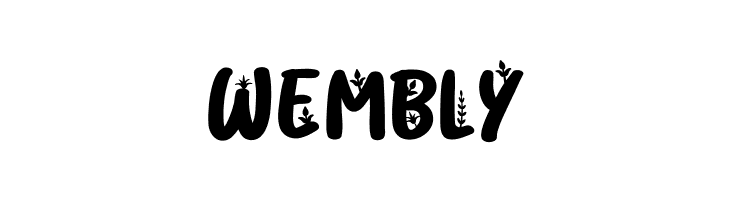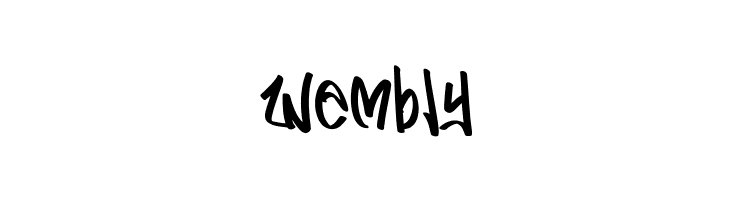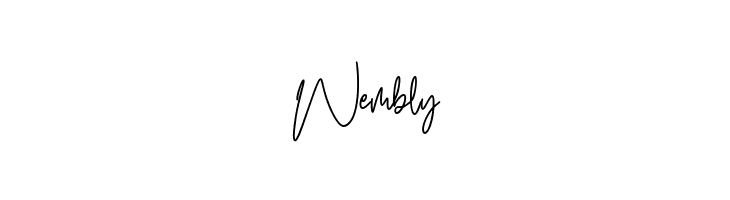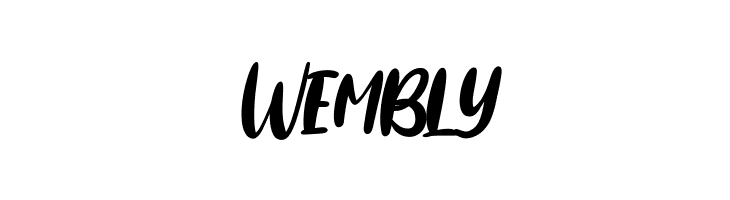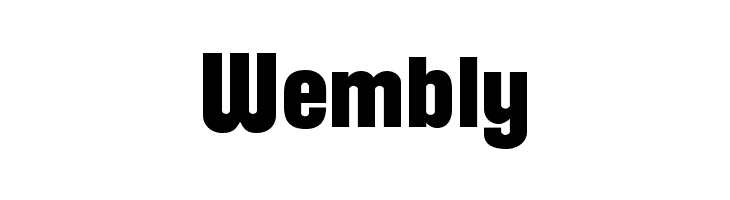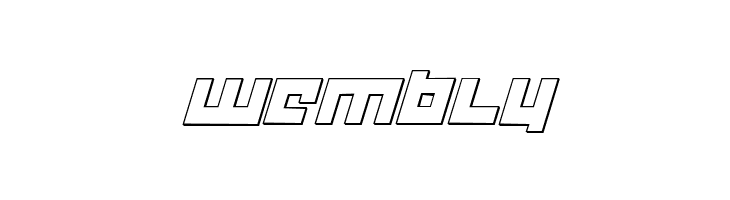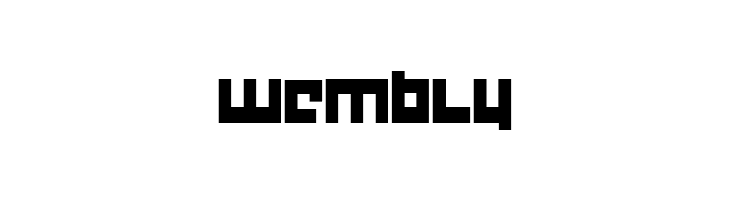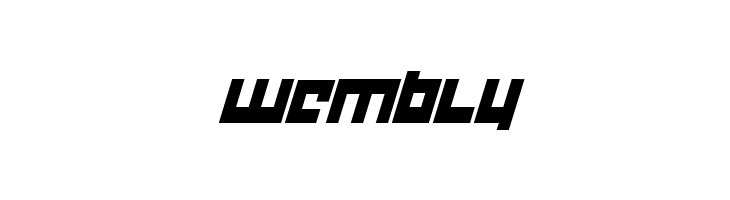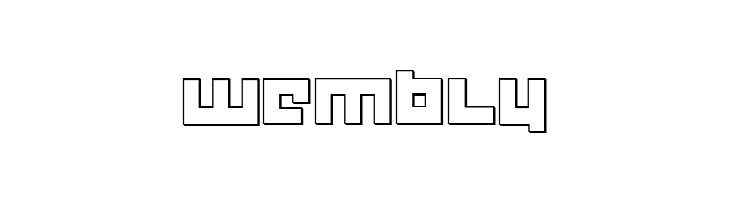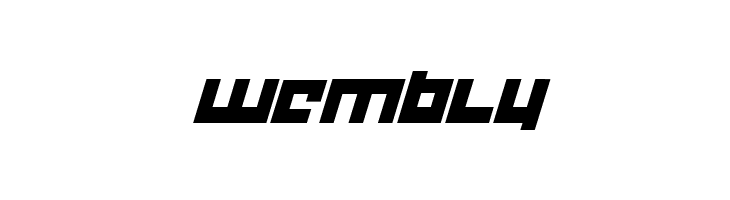
A bold, pixelated font with a geometric, digital style.
A playful, bold outline font with a whimsical, hand-drawn style.
A bold, retro-style font with thick, exaggerated curves.
A gothic-inspired font with elongated, angular letterforms and sharp serifs.
A flowing, elegant script font with high contrast and a modern, artistic style.
A bold, geometric font with a 3D effect, perfect for modern designs.
A bold, italicized 3D font with a futuristic and angular design.
A bold, geometric, and condensed font with a futuristic digital aesthetic.
A bold, condensed, and italicized font with a futuristic, geometric style.
A bold, angular font with a futuristic and geometric design.
A whimsical collection of dynamic pictograms depicting motion and activity.
Energetic pictogram font with action-themed icons.
A bold, graffiti-inspired font with dynamic strokes and an urban aesthetic.
An elegant, flowing script font with a natural handwriting style.
A bold, impactful font with thick strokes and rounded edges.
A bold, modern sans-serif font with strong, uniform strokes.
A bold, decorative font with floral accents on each character.
Geometric display font with decorative floor tile patterns.
Geometric tile-patterned decorative display font.
A decorative font with intricate floral patterns enhancing each character.
An ornate, floral-themed decorative font with intricate botanical patterns.
An ornate, floral-themed decorative font with intricate details.
A bold, decorative font with intricate thorny vine designs.
A decorative font with intricate floral and animal motifs, perfect for artistic projects.
A decorative font with thorn-like embellishments and high contrast strokes.
A decorative font with letters encased in intricate floral patterns.
A classic serif font with high contrast and elegant italic styling.
An artistic and decorative font with intricate, whimsical designs.
A bold, handwritten font with smooth curves and a playful aesthetic.
A bold, modern font with thick strokes and strong visual impact.